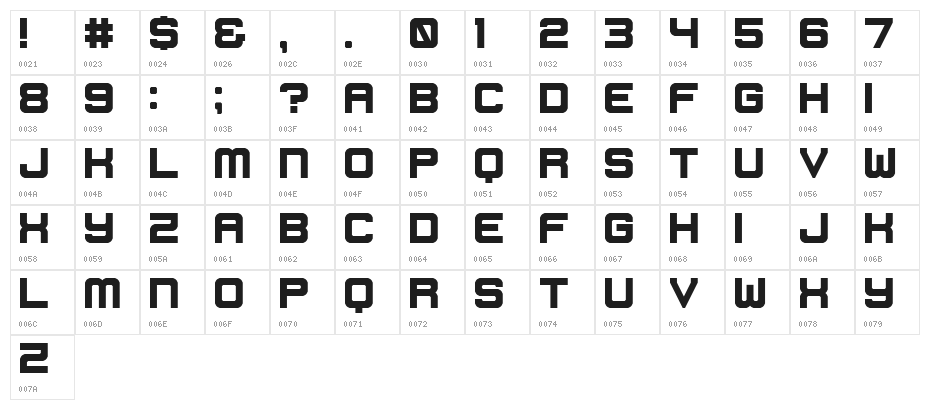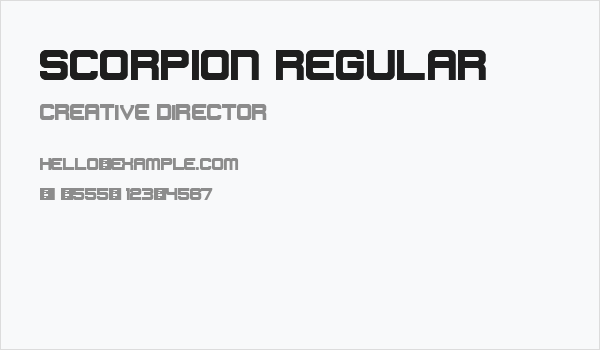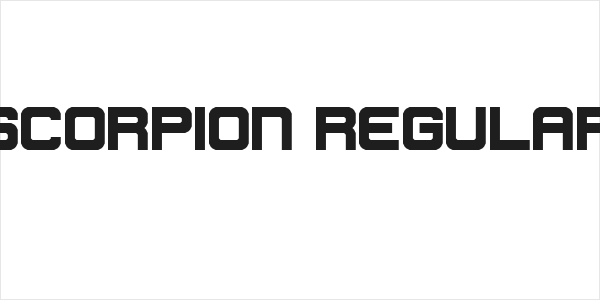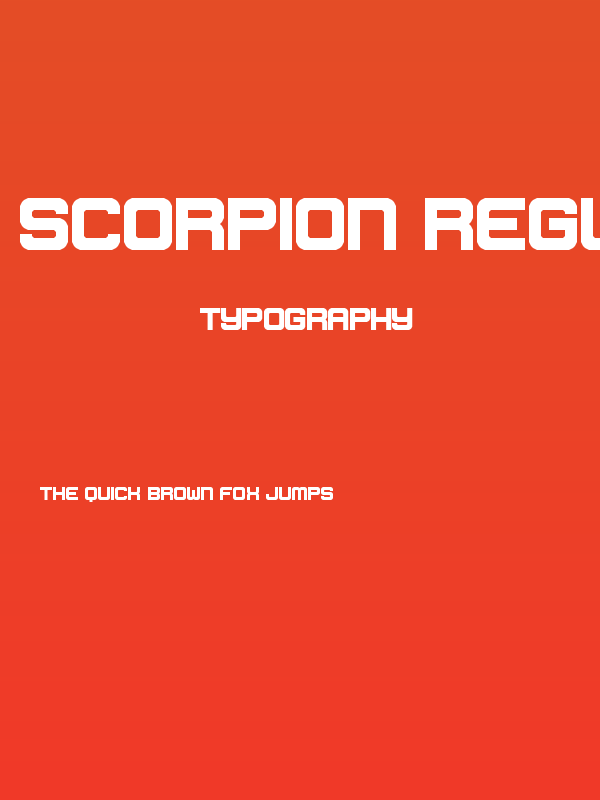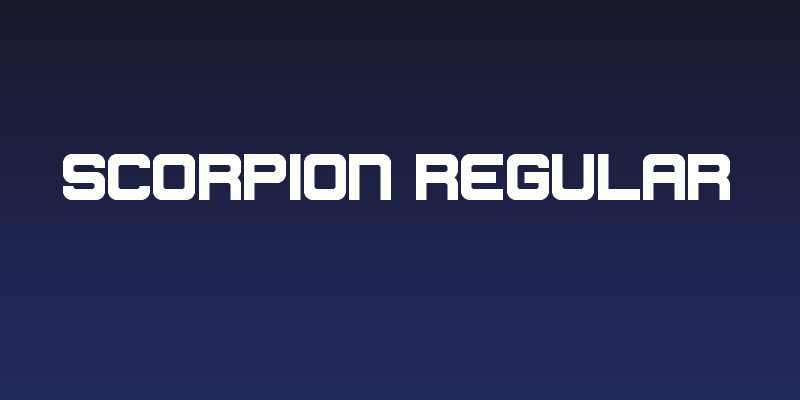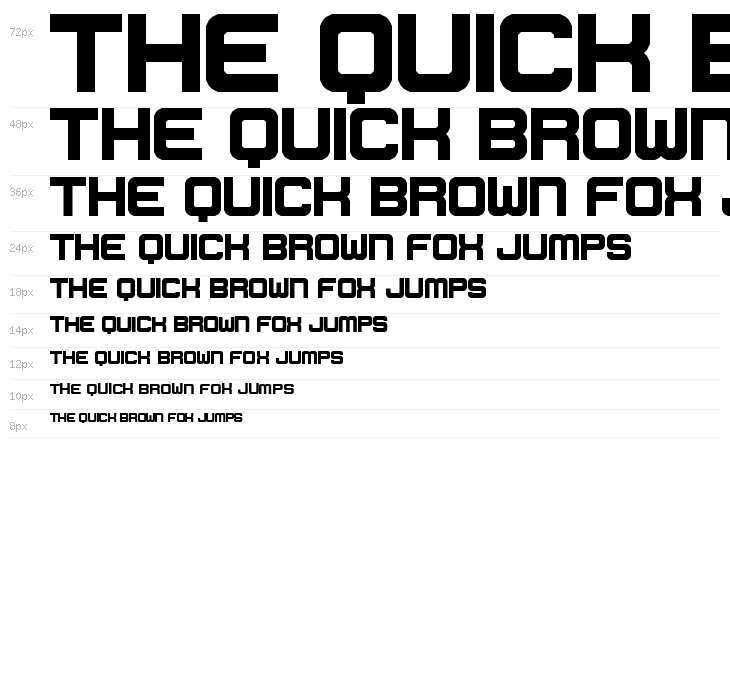
Scorpion Regular Font
Scorpion Regular Description
This font features a bold, geometric design with a futuristic and industrial feel. The characters are constructed with thick, block-like strokes, creating a strong and impactful presence. The uppercase letters are uniform in height, with rounded corners that soften the overall appearance. The lowercase letters maintain the same boldness, offering a cohesive look across different text cases. Numerals are equally robust, ensuring readability and consistency. Special characters are designed to match the bold and structured aesthetic, making this font suitable for attention-grabbing headlines and modern design projects.
| Proposed Projects | Ideal for technology branding, sci-fi themed designs, video game interfaces, and modern advertising. |